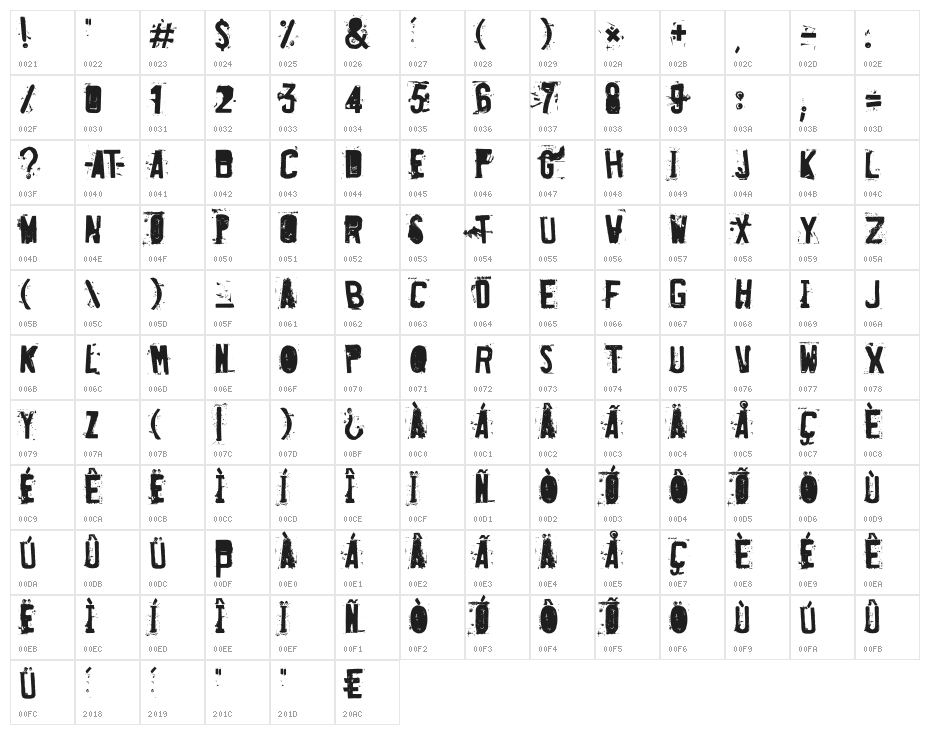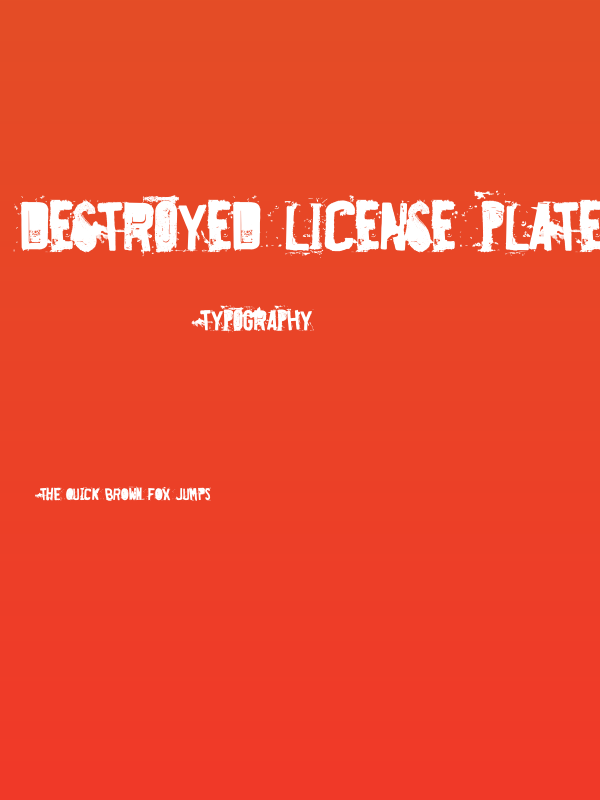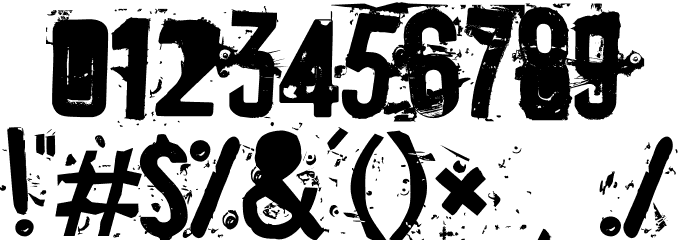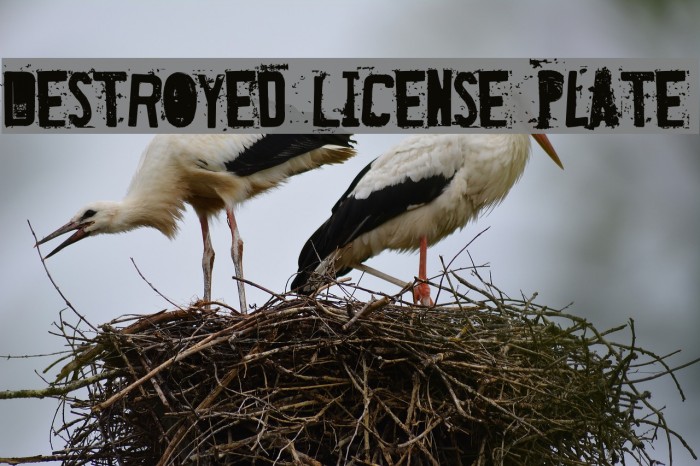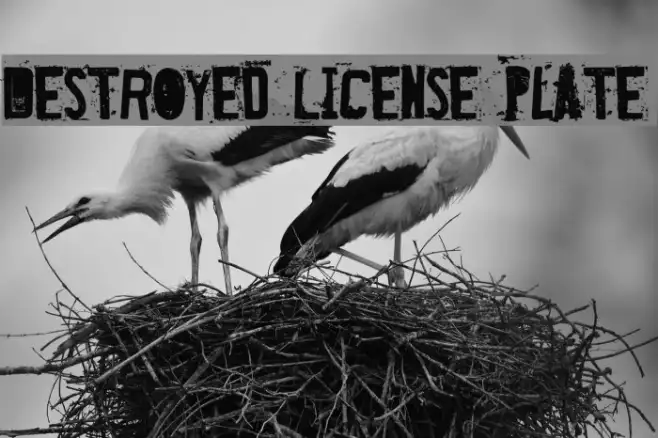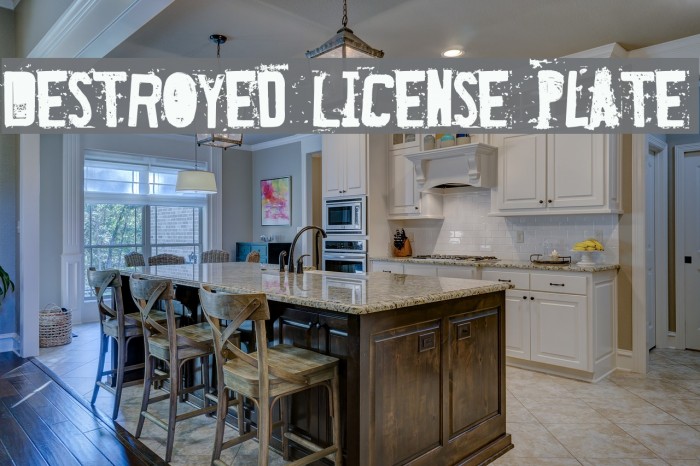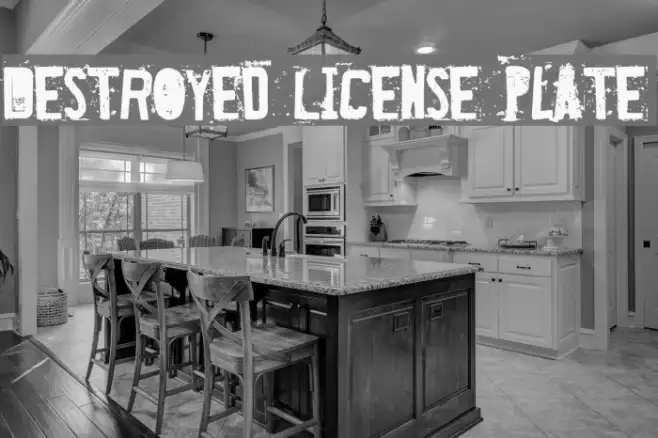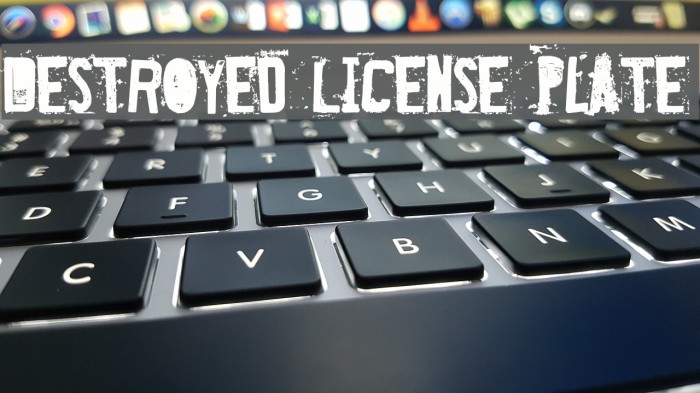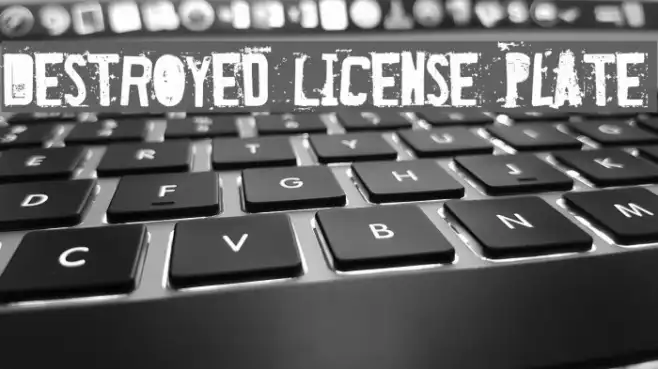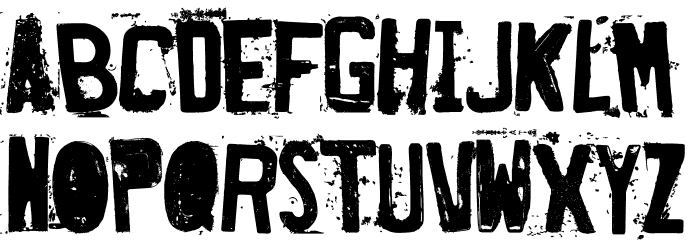
Destroyed License Plate Font
Destroyed License Plate Description
This font features a distressed and grunge aesthetic, reminiscent of worn-out license plates. The characters are bold and heavily textured, giving them a rugged and edgy appearance. The uppercase letters are prominently displayed, with each character exhibiting unique imperfections and irregularities that contribute to the overall distressed look. The numbers and special characters follow the same style, maintaining consistency throughout the font. This design is perfect for projects that require a raw, industrial feel, such as posters, album covers, or urban-themed graphics.
| Overall Style | Grunge, Industrial |
| Proposed Projects | Ideal for posters, album covers, urban-themed graphics, and any project needing a rugged, edgy look. |